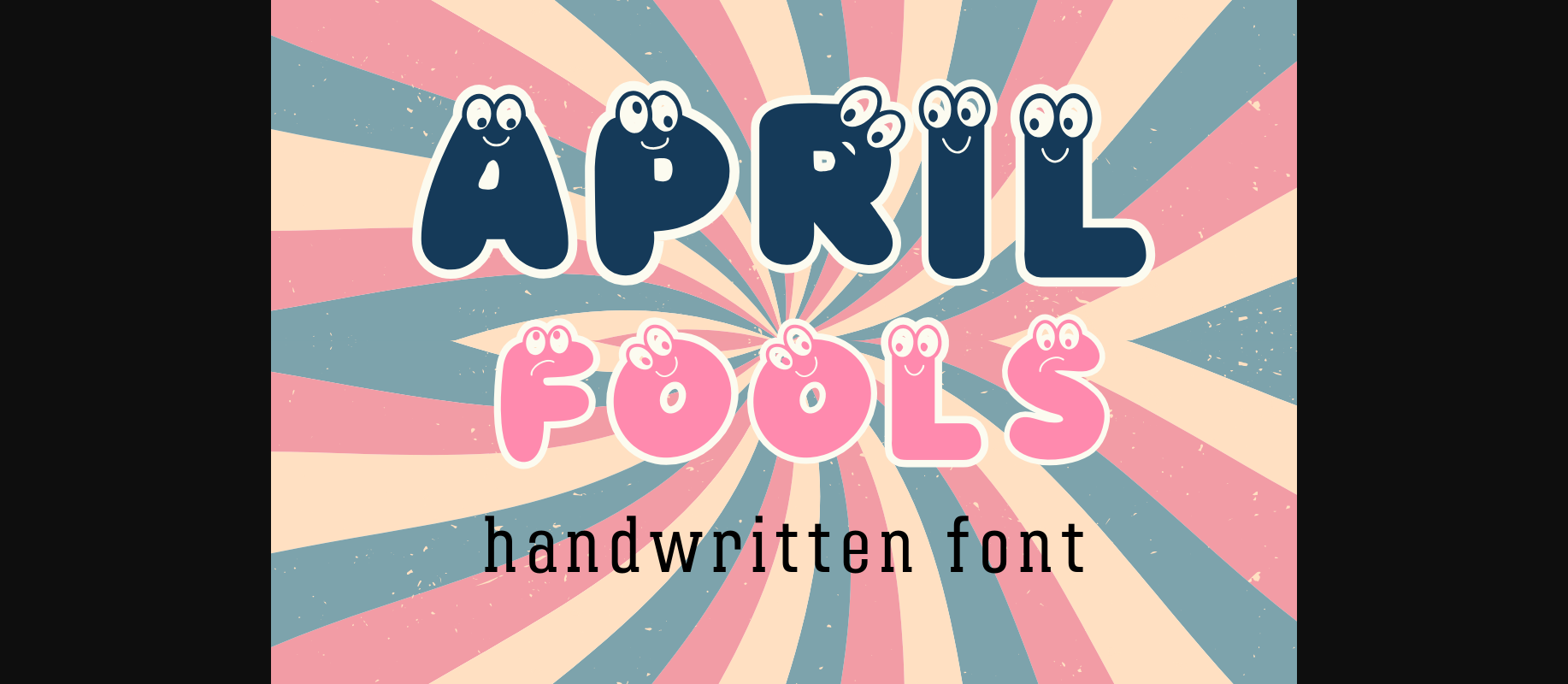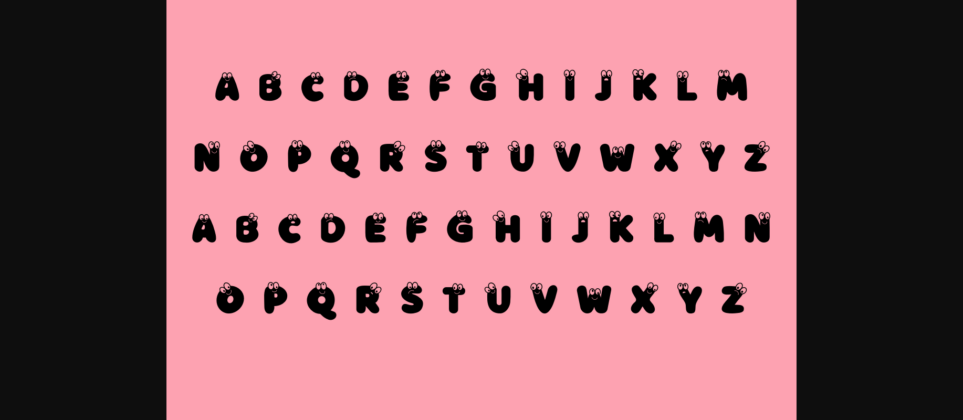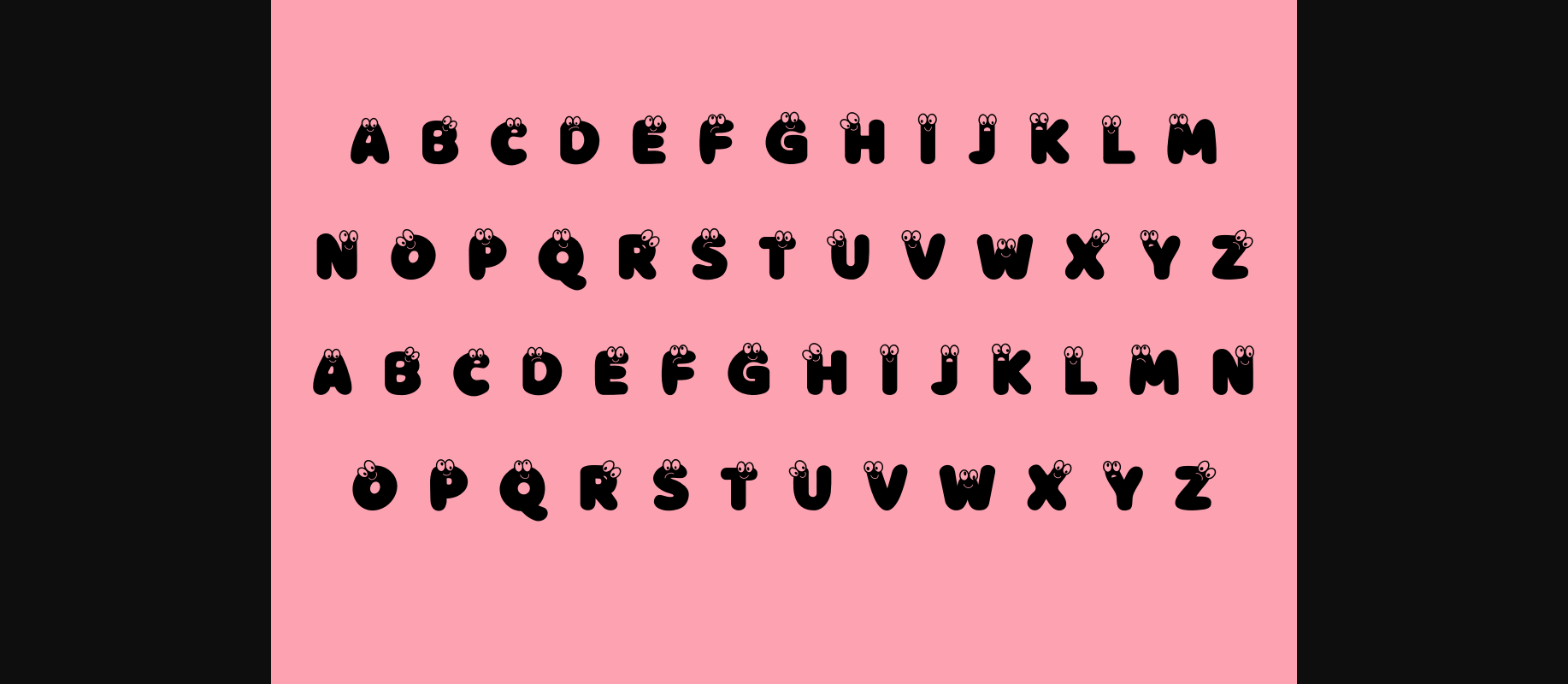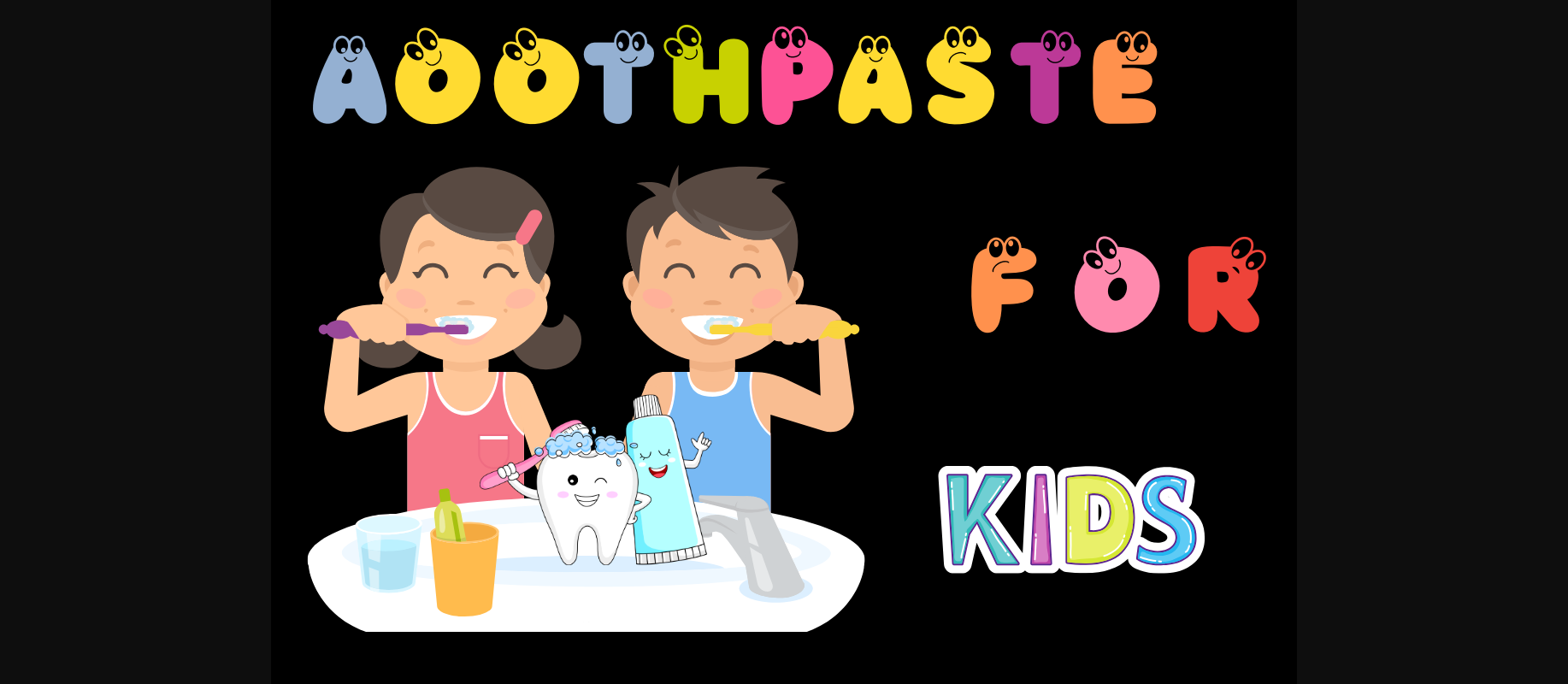
About April Fools Font
April Fools is a delightful and whimsical typeface, perfect for adding a playful touch to your designs. With its quirky characters and charming flourishes, it brings a sense of humor and lightheartedness to any project. Ideal for greeting cards, posters, and festive occasions, it captures the spirit of fun and celebration.